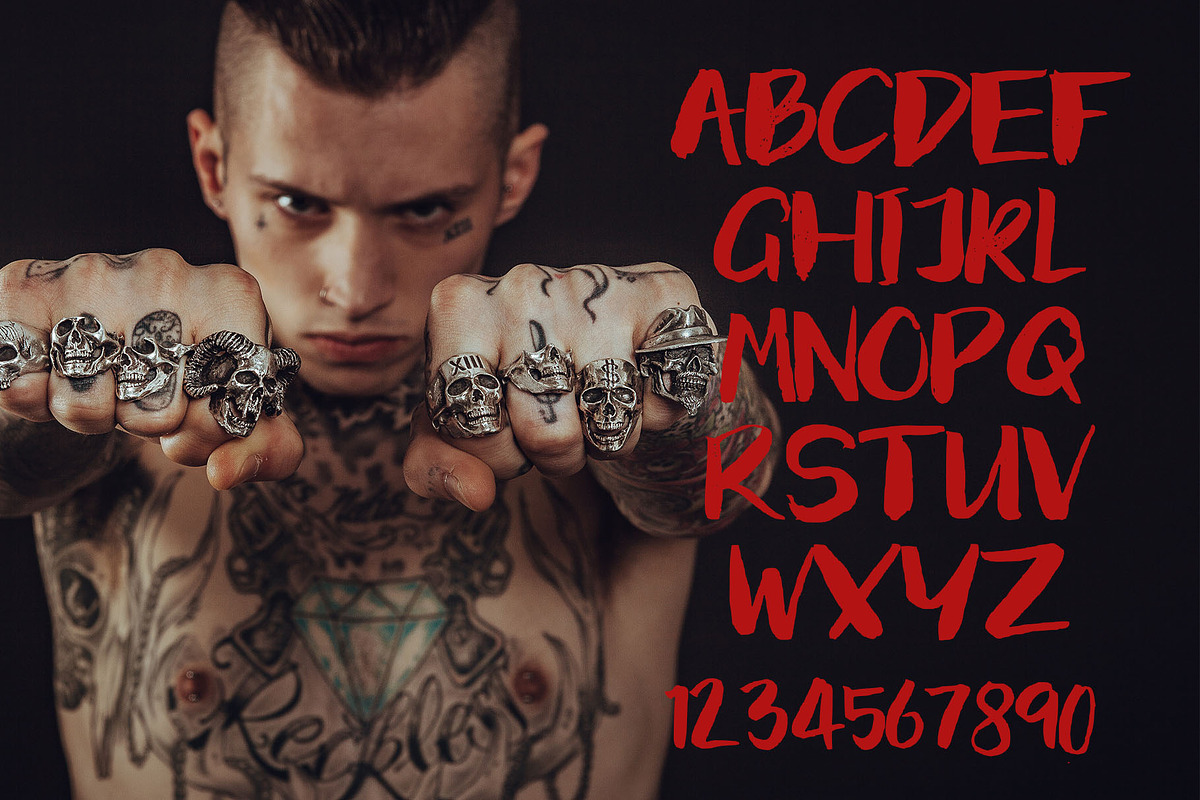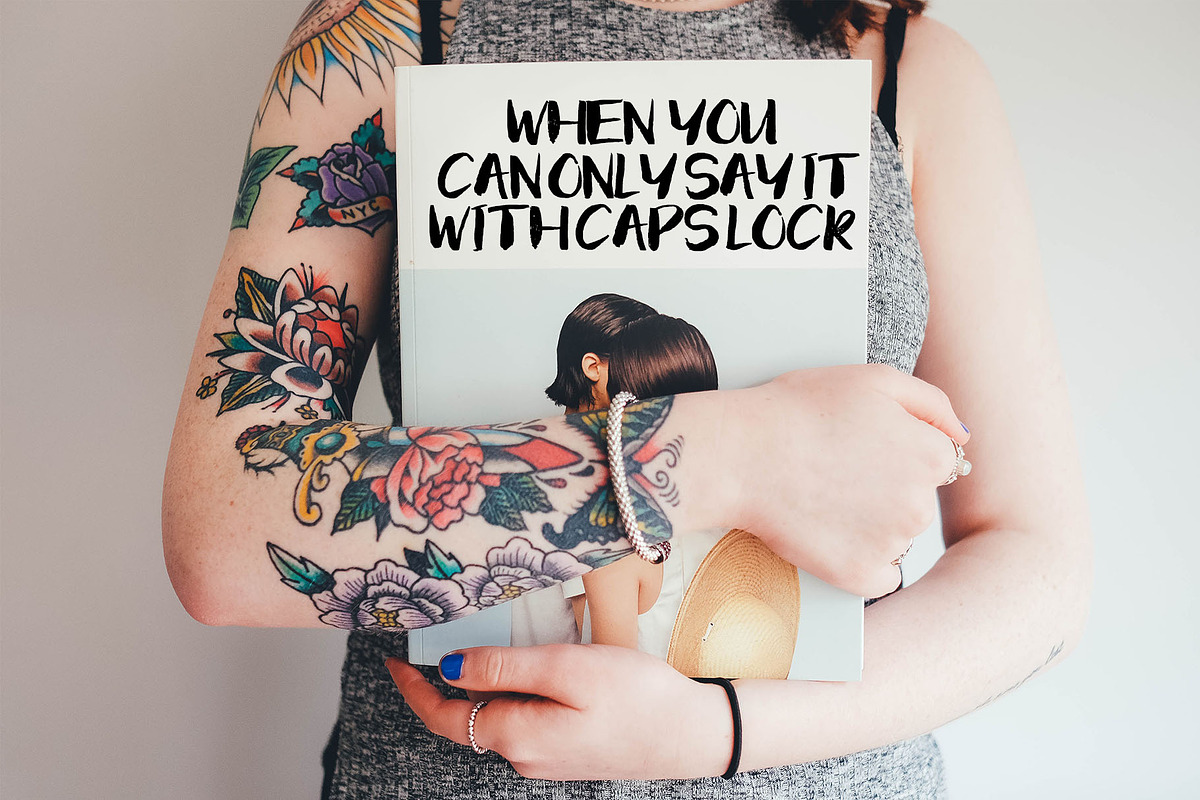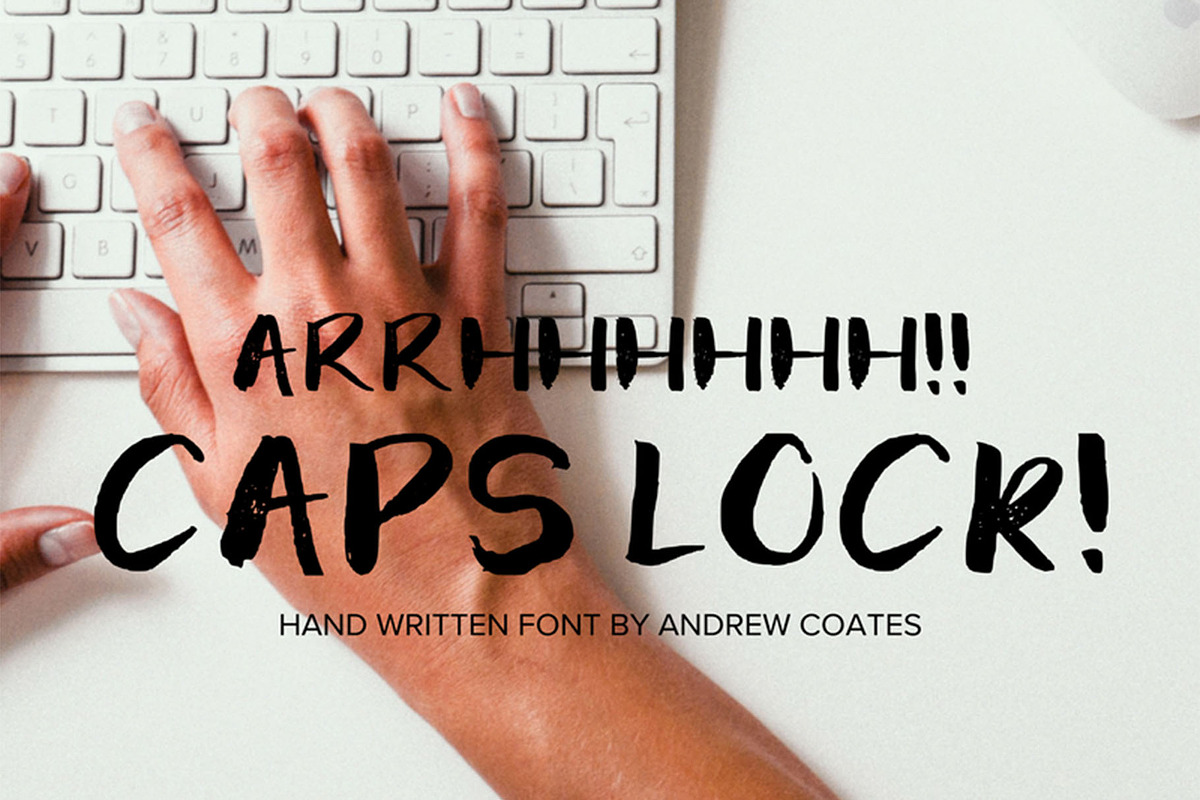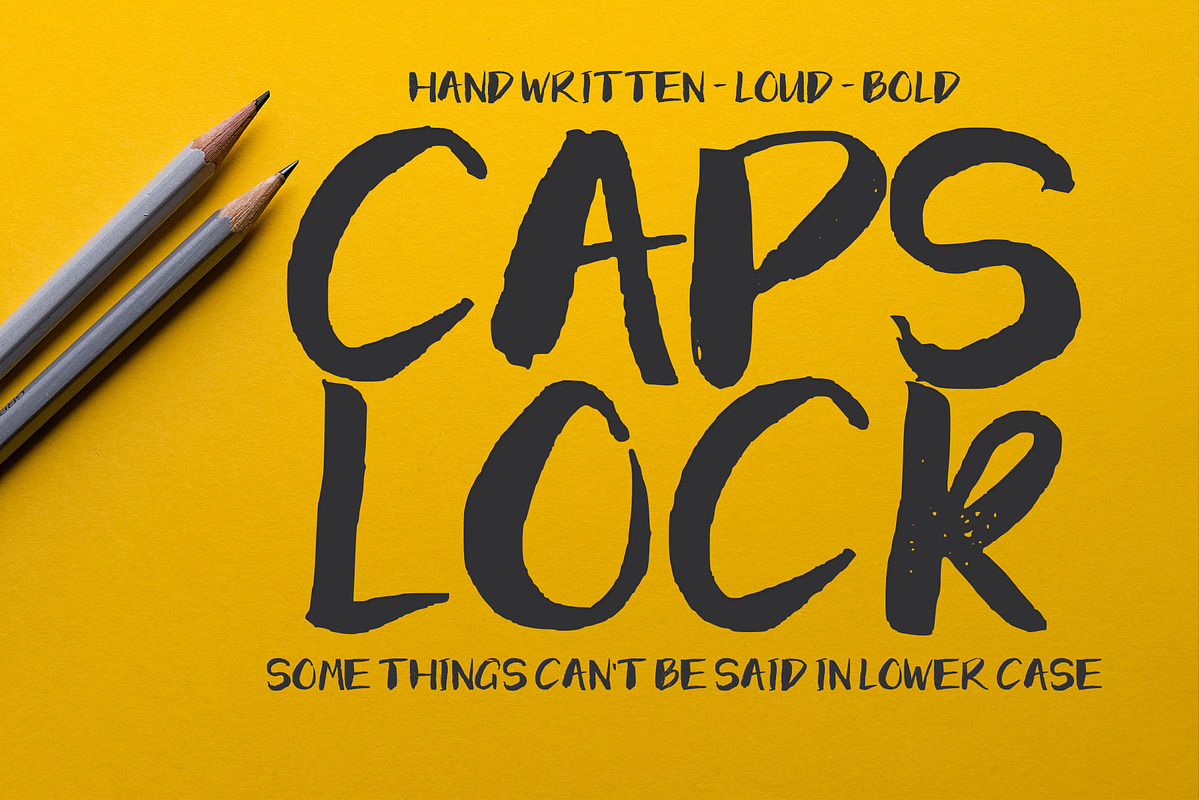
ARC CAPS LOCK - Handwritten Font
When it needs to be loud, it's gotta be CAPSLOCK!
This hand lettered uppercase-only font was created with a Pentel Brush Pen (yes a real pen) on high quality, thick weighted craft paper. Each hand written letter was then digitised and converted to glyphs.
Many other "handwritten" fonts are done on iPads, which gives a polished, flawless kind of feel, but can often lack the roughness of real ink on a brush being dragged across paper. This font captures the bold, loud and authentic 'hand drawn' feel that caps lock is all about. While most fonts have both an upper and lower case, this is a dedicated upper case font that was created for bold, loud and aggressive work.
- This hand lettered uppercase-only font was created with a Pentel Brush Pen (yes a real pen) on high quality, thick weighted craft paper.